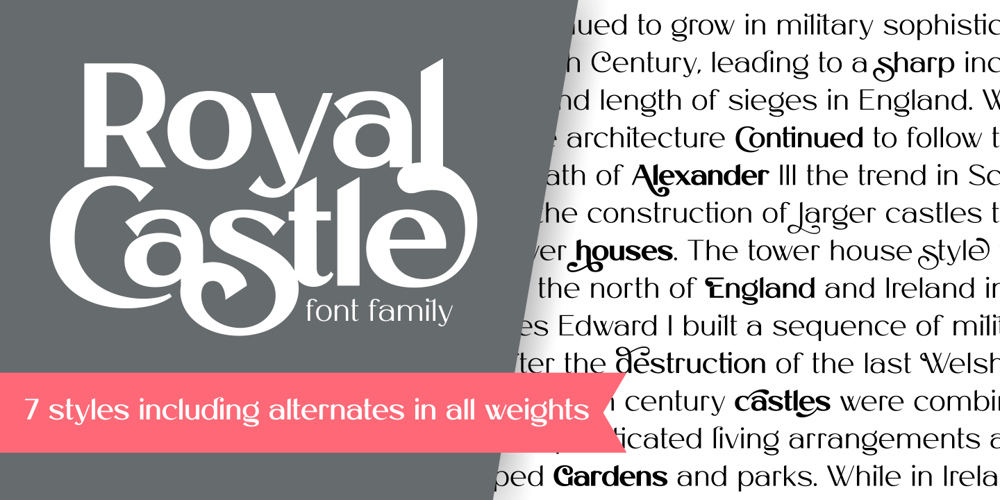
Royal Castle Font Family was designed by Alfin Weniardi and published by Lone Army. Royal Castle contains 7 styles and family package options. Proudly introducing my new Font family Royal Castle. I designed this font to become a modern luxury sans serif family, but there it has a little touch of retro and vintage feel on alternate that can make it more popup.Royal Castle is perfect for projects such as logos, banner invitations, magazines, posters, fashion designs projects, and many more.Royal Castle also support a wide range of multi-lingual characters.